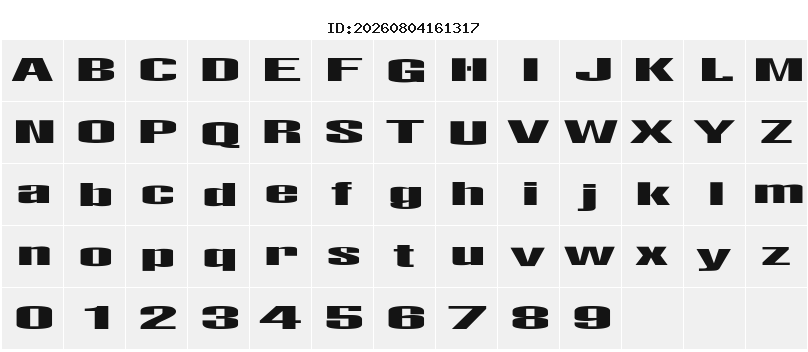
Nighttime Preview
• Font Name: Nighttime
• Full Font Name: Nighttime
About Nighttime.ttf
Nighttime.ttf is a modern, elegant sans-serif font designed for ultimate readability and visual harmony. Perfect for branding, headlines, web design, and print materials.